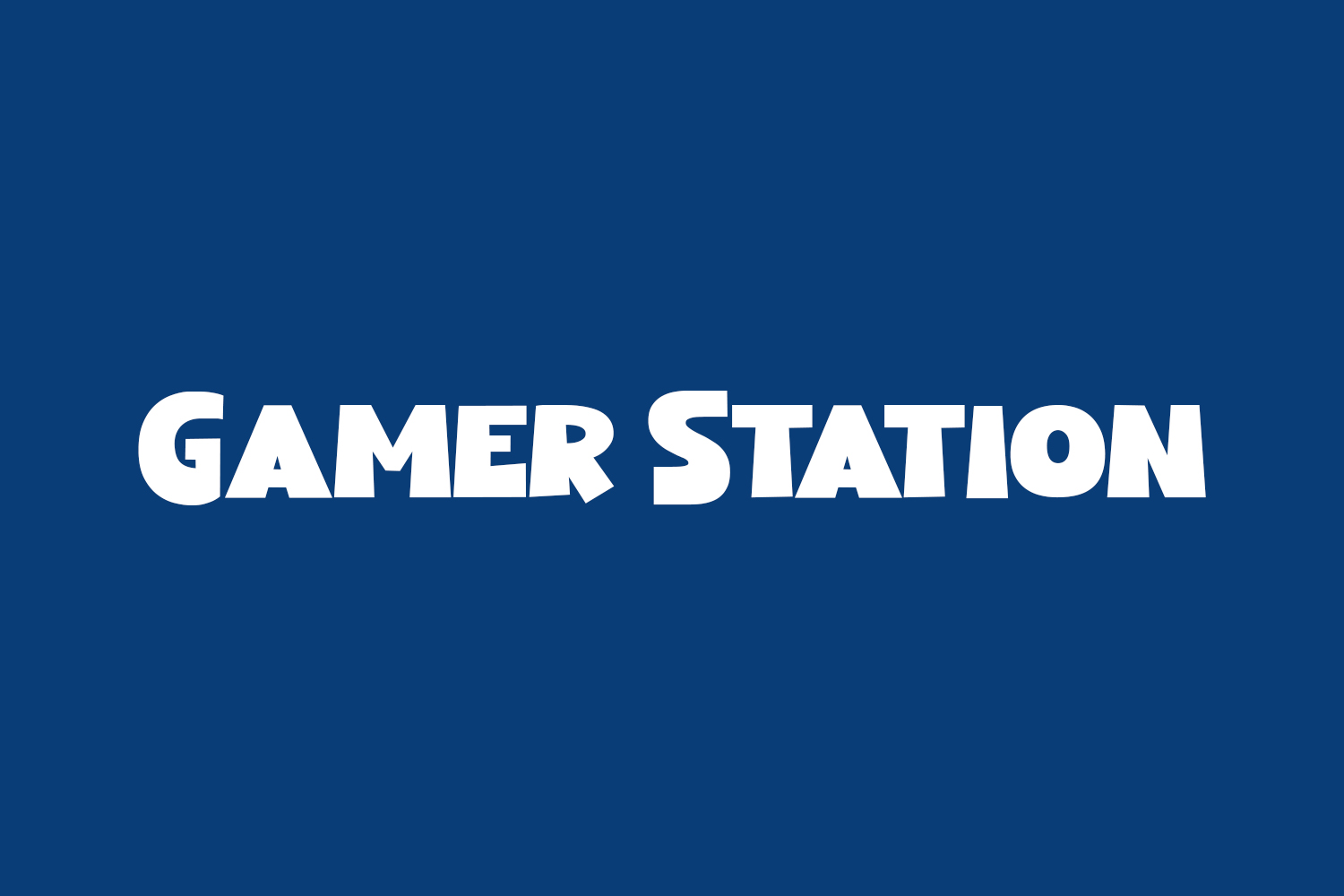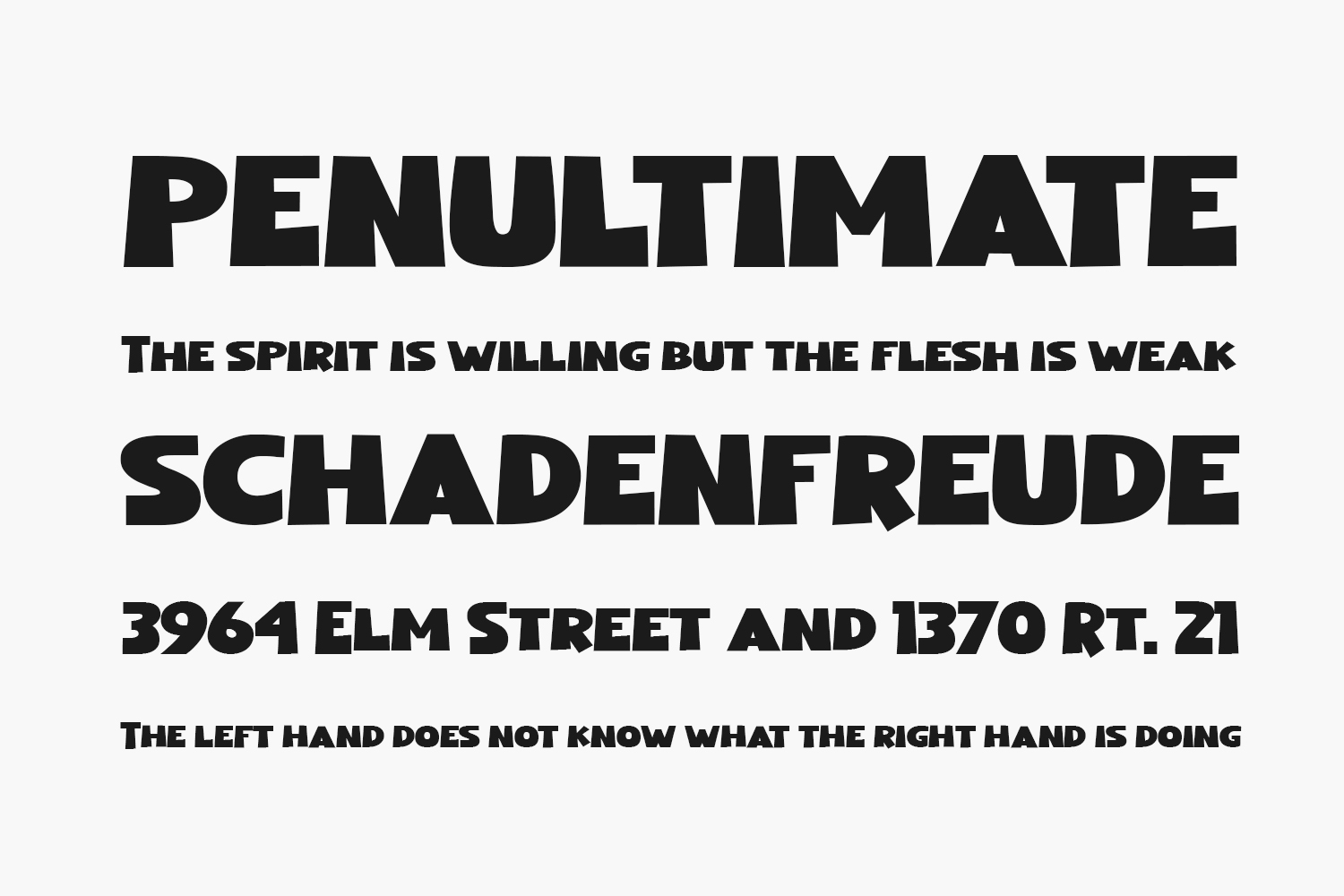
Gamer Station Free Font Family is a stylish and bold display typeface. With its unique look, it’s sure to enhance a wide range of design projects, from letterheads and headings to stationery and beyond. Whether you’re working on a creative project or simply want to add some character to your designs, this cool and chunky font is a perfect choice.
Designed by Bangkit Tri Setiadi